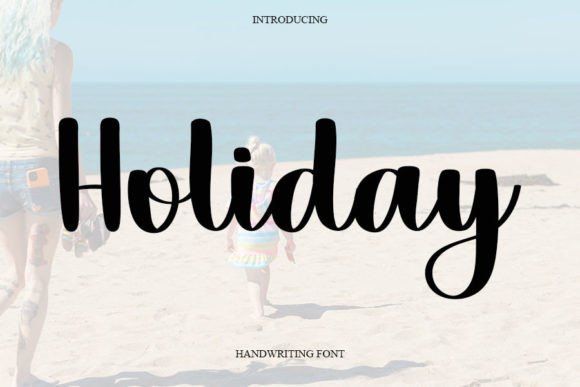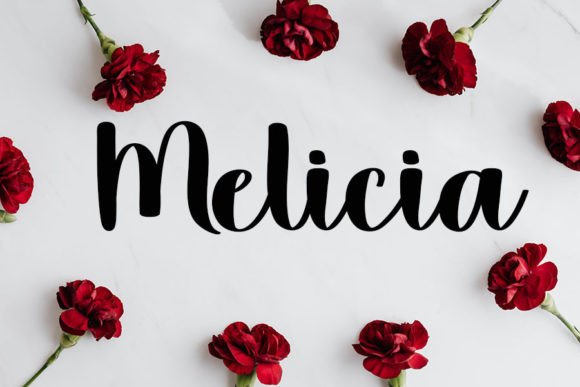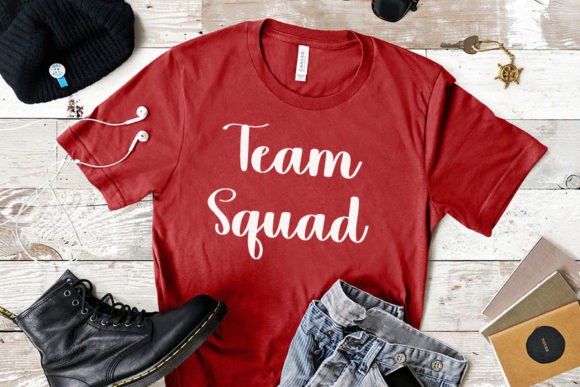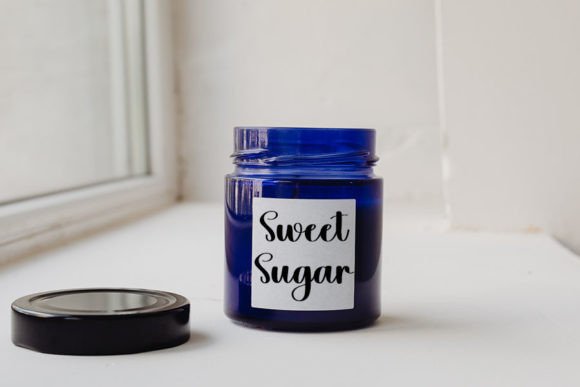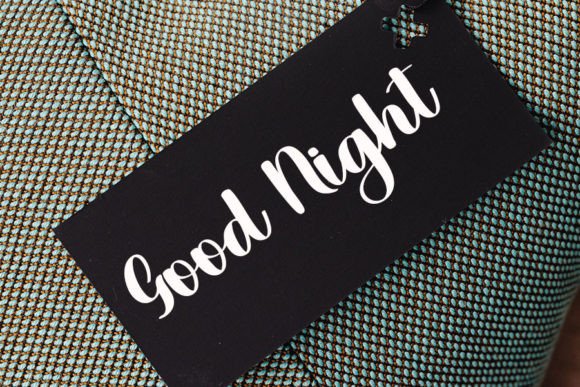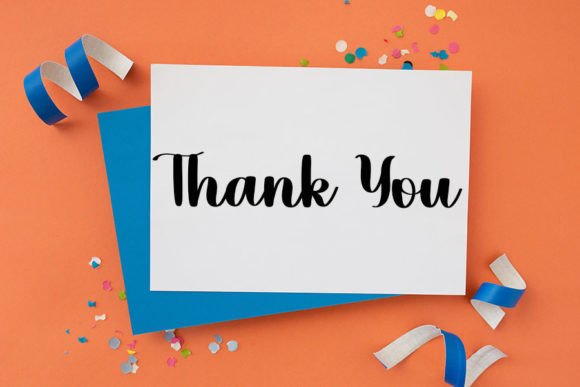
Adding a Touch of Luxury to Your Designs
There’s something magical about the holiday season – the twinkling lights, the cozy atmosphere, and of course, the beautiful typography that accompanies it all. As a designer, you know that the right font can make all the difference in capturing the essence of a special moment. And that’s exactly what the Holiday Font does – it adds a touch of luxury and sophistication to any design project.
With its elegant, handwritten characters that dance along the baseline, the Holiday Font is the perfect choice for designers looking to create a unique and eye-catching look. Whether you’re working on a holiday card, a wedding invitation, or a special promotional campaign, this font is sure to leave a lasting impression.
Holiday Font Key Features
- Font Family: Holiday Font is a display font with a festive and playful design, perfect for holiday-themed projects.
- Unique Characteristics: Features intricate, hand-drawn designs, ornaments, and swashes to add a touch of elegance and whimsy to holiday-themed projects.
Designer Review: Holiday Font
Overall, I think the Holiday Font has some great qualities, but also a few areas where it falls short. Let’s dive in and see what I mean.
- The font has a clear and festive feel to it, making it perfect for holiday-themed projects.
- The bold weight is great for headings, and the regular weight works well for body text.
- The font is highly customizable, allowing for a wide range of color and size options.
- The font is quite limited in its character set, which may not be suitable for projects that require a wide range of special characters.
- The font’s bold weight can be a bit too bold at times, making it difficult to read in certain contexts.
- The font is not suitable for body text in paragraphs, as it can be a bit too ornate and distracting.
Overall, I think the Holiday Font is a great addition to any designer’s toolkit, but it’s not a one-size-fits-all solution. With a little creativity and flexibility, it can add a touch of holiday magic to your projects.
Some popular use cases for the Holiday Font include:
- Creating festive holiday cards and invitations.
- Designing social media posts and ads for holiday promotions.
- Adding a touch of holiday cheer to newsletters and email campaigns.
Remember to use the Holiday Font in a way that complements your design and doesn’t overpower the message. Experiment with different font sizes, colors, and styles to find the perfect balance.